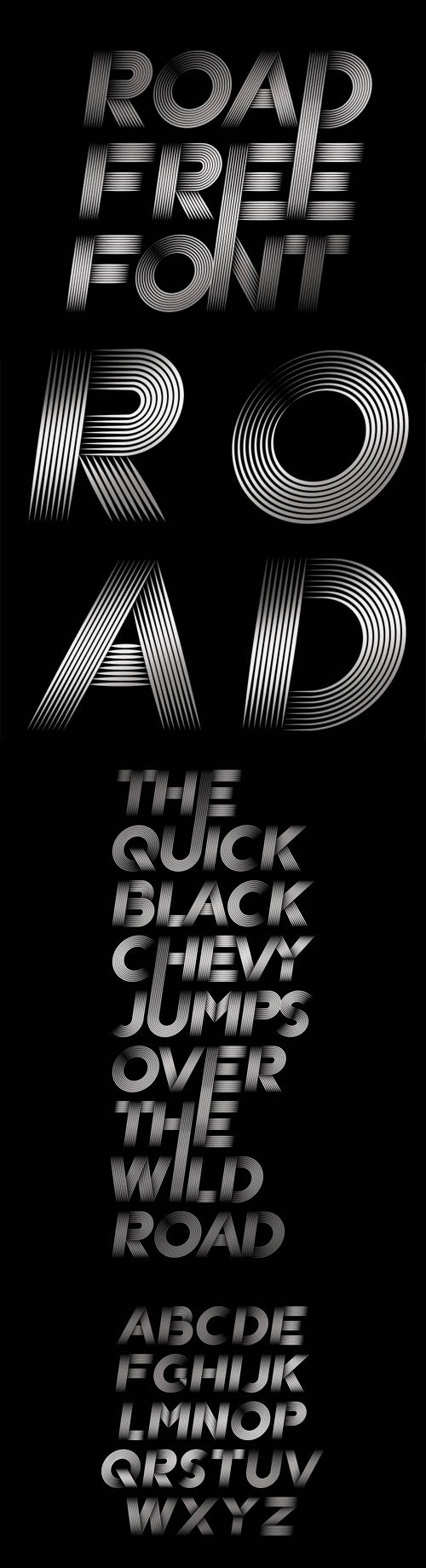
Road Retro Typeface in Vector [AI]
Road Retro Typeface is a pack of vector typeface from Patrick Seymour. As you can see on the preview above, it is going to look great on retro branding, logotype, and vintage movie poster. Available in Ai (Adobe Illustrator) format, that you can customize and recolor the way you want.